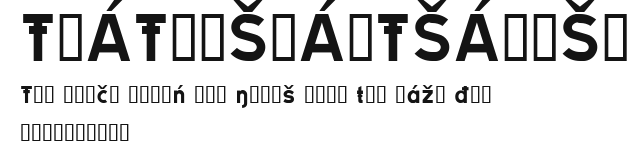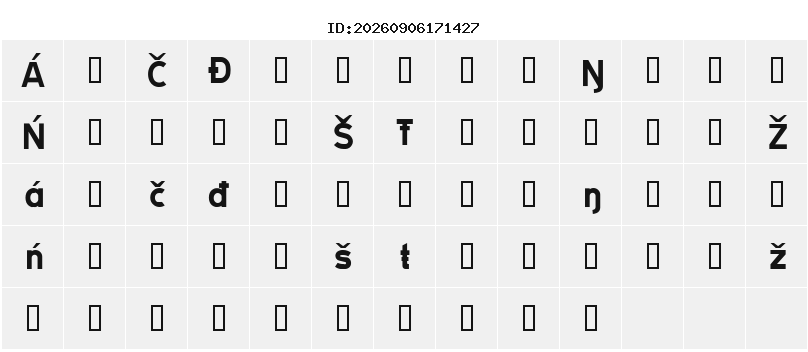
• Font Name: TRATEXSVARTSAMISK
• Font Style: SVARTSAMISK
• Full Font Name: TRATEXSVARTSAMISK SVARTSAMISK
About TRATEXSVARTSAMISK.ttf
TRATEXSVARTSAMISK.ttf is a modern, elegant sans-serif font designed for ultimate readability and visual harmony. Perfect for branding, headlines, web design, and print materials.